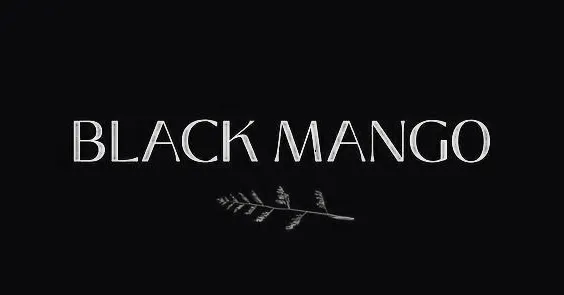
Black Mango Font is a modern, elegant sans-serif typeface designed by Kadek Mahardika of Creative Medialab. Released in October 2020, this versatile font family is popular among designers for its clean, chic aesthetic.
| OriginalDesign Characteristics
Black Mango Font features a contemporary, minimalist design with nine distinct weights ranging from Thin to Black. It includes dozens of stylistic alternates for creative customization and supports multiple languages, such as Western and Central/Eastern European languages, Turkish, Maltese, Estonian, Latvian, and Lithuanian. The font family contains 429 glyphs, including numbers, currency symbols, and special characters, and is available in variable font format for maximum flexibility.
Best Use Cases
This versatile font excels in fashion and lifestyle branding, particularly for chic, fashion-forward projects. It’s ideal for logo design, corporate identity, web and digital interfaces, editorial work including magazines and headers, and various print materials such as greeting cards, invitations, business cards, and apparel design.
The best font pairings for Black Mango:
For contrast: Use Georgia or Crimson Text for body text. These serif fonts balance Black Mango’s modern style.
For a clean look: Pair with Roboto or Avenir Next. These neutral sans-serifs work well without competing.
For branding: Gotham can match Black Mango when used with different weights.
For magazines: Times New Roman gives a classic editorial feel.
Simple rule: Use Black Mango for headlines, and these other fonts for body text.
Conclusion
Black Mango Font combines modern elegance with practical versatility, making it an excellent choice for fashion-forward branding, web design, and editorial projects.